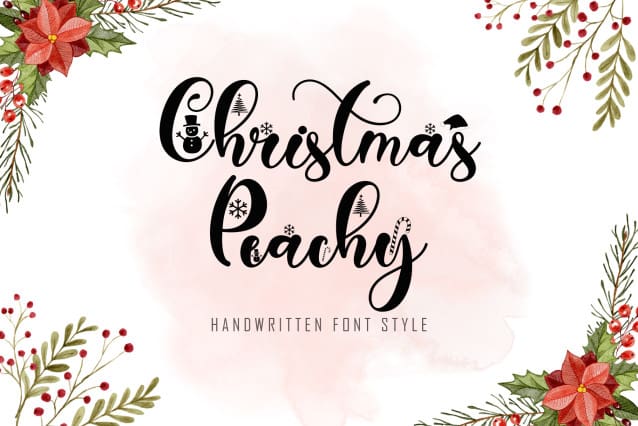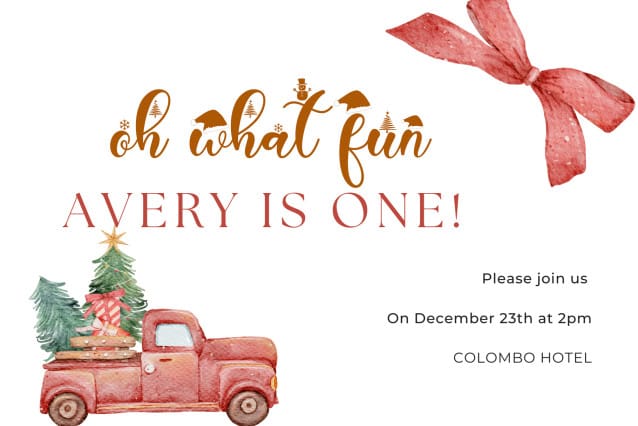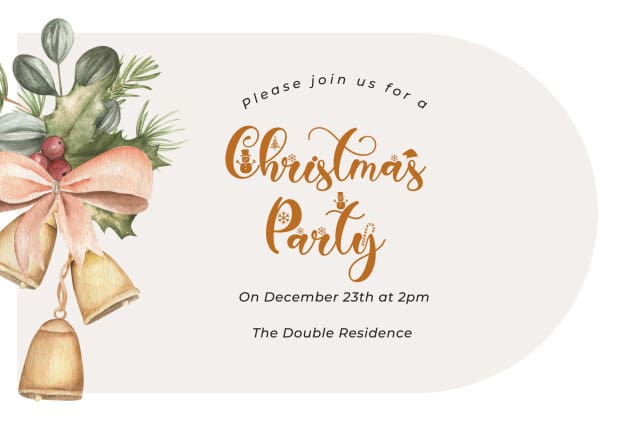
Christmas Peachy Typeface
Christmas Peachy Typeface is a beautiful handwritten font with Christmas ornaments. This font is equipped with uppercase letters, lowercase letters, ligatures, multilingual support, numerals and punctuations. Very suitable for Christmas, winter, Valentine’s Day, Easter, weddings, engagements, invitations, parties and others.